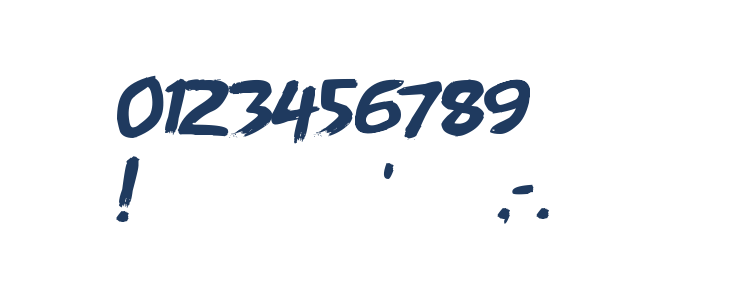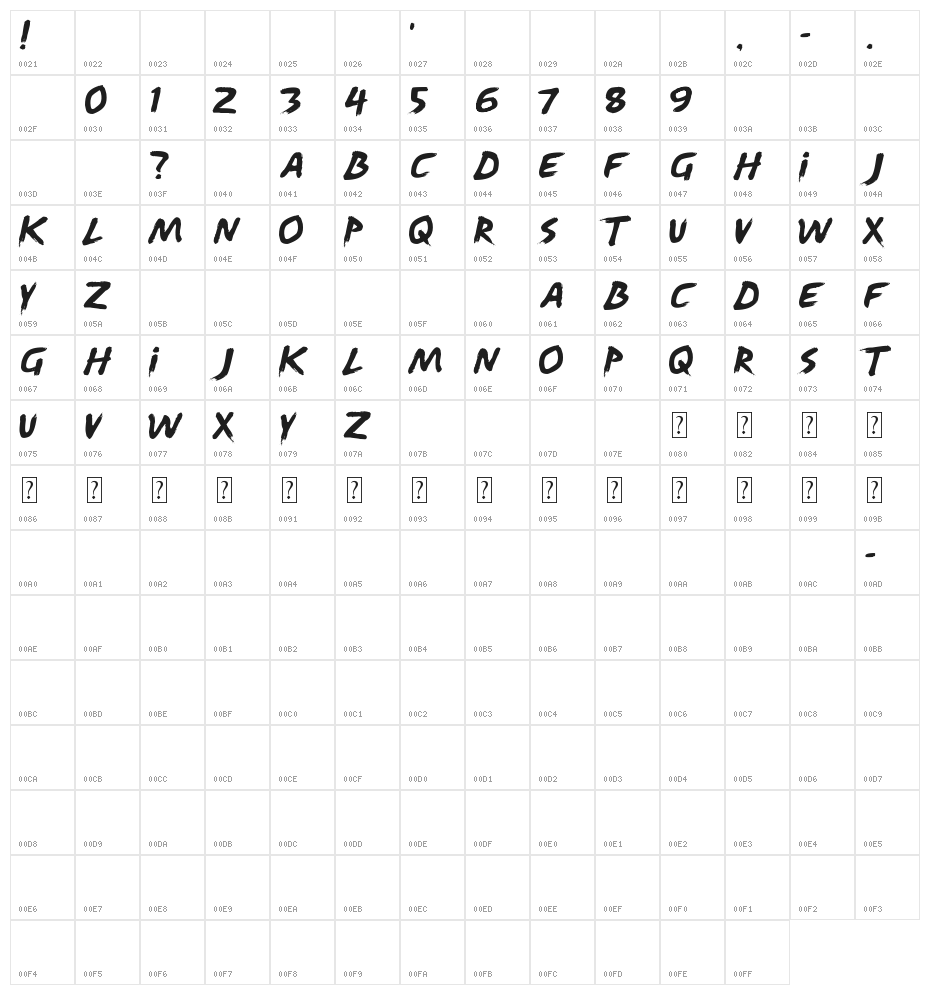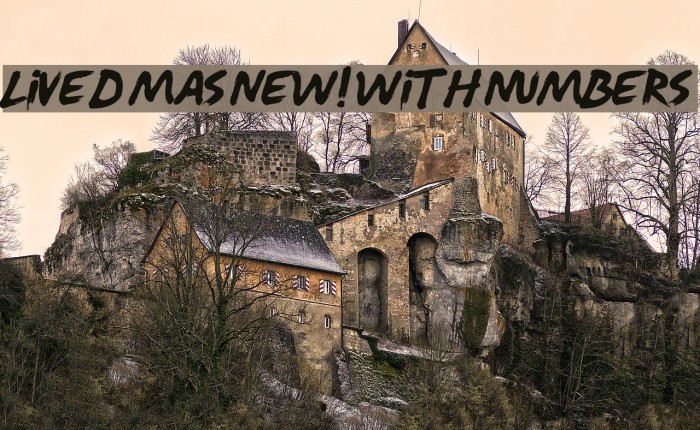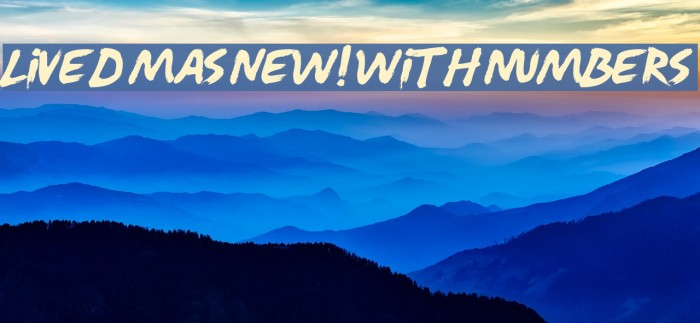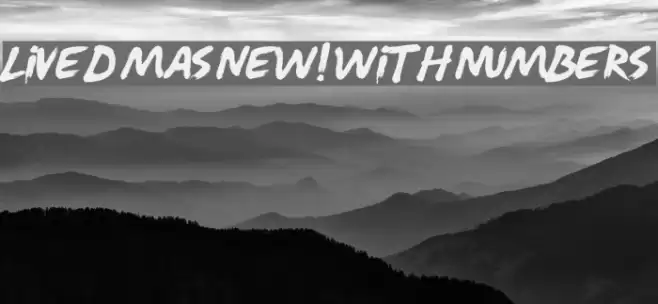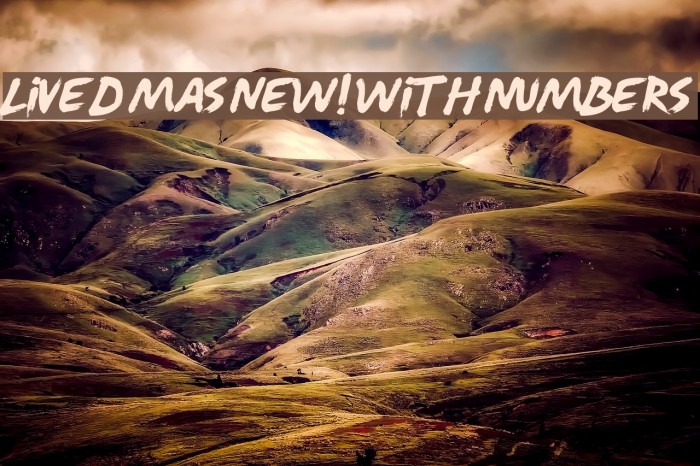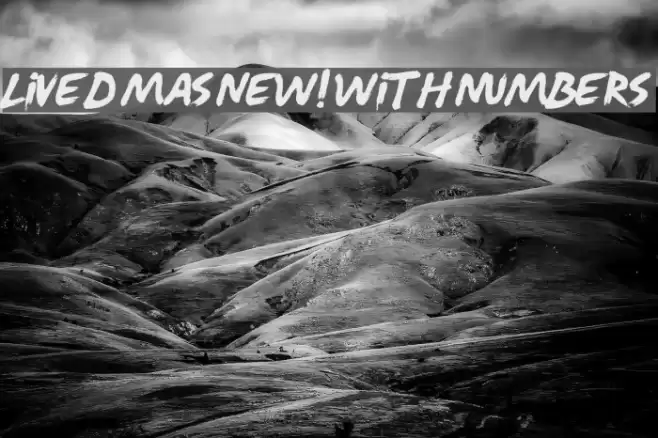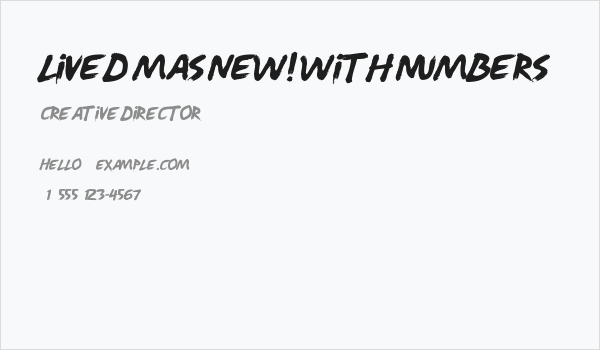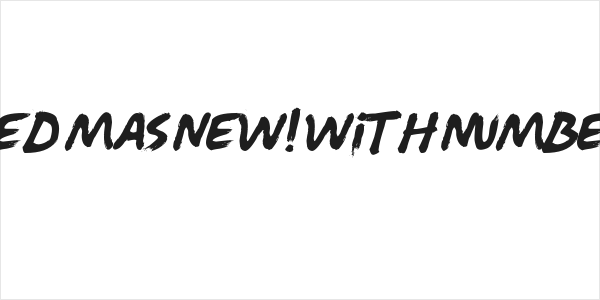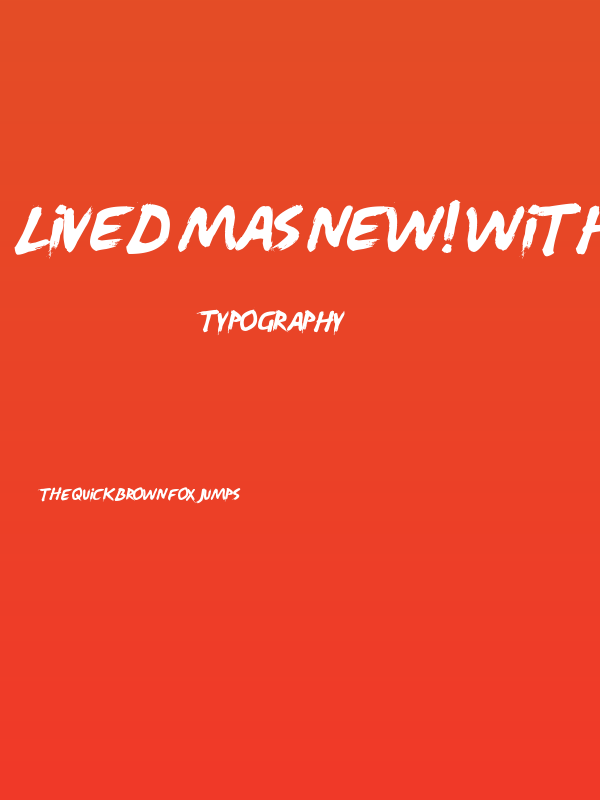
Lived Mas NEW! With Numbers Font
Lived Mas NEW! With Numbers Description
This font exhibits a bold, brush-like style that conveys a sense of energy and dynamism. The strokes are thick and uneven, giving it a hand-painted appearance. The characters are slightly slanted, adding to the impression of movement and spontaneity. The uppercase and lowercase letters maintain a consistent style, with the uppercase being more pronounced. Numbers and special characters are equally bold, ensuring uniformity across all glyphs. The font's rough edges and varying stroke widths contribute to its artistic and expressive nature, making it ideal for projects that require a personal touch.
| Proposed Projects | Ideal for artistic projects, posters, branding, and any design that seeks to convey energy and creativity. |